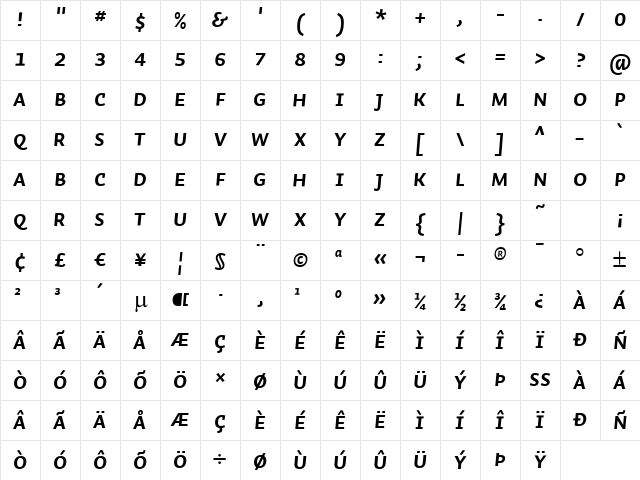
Auto 3 Bold Italic SmCp
Style: Bold Italic SmCp
Design Context for Auto 3
Auto 3 is a composed and adaptable typeface that performs quietly and consistently across a wide range of design contexts. The slanted form adds forward momentum and visual energy. Its bold stroke weight gives it real presence on the page.